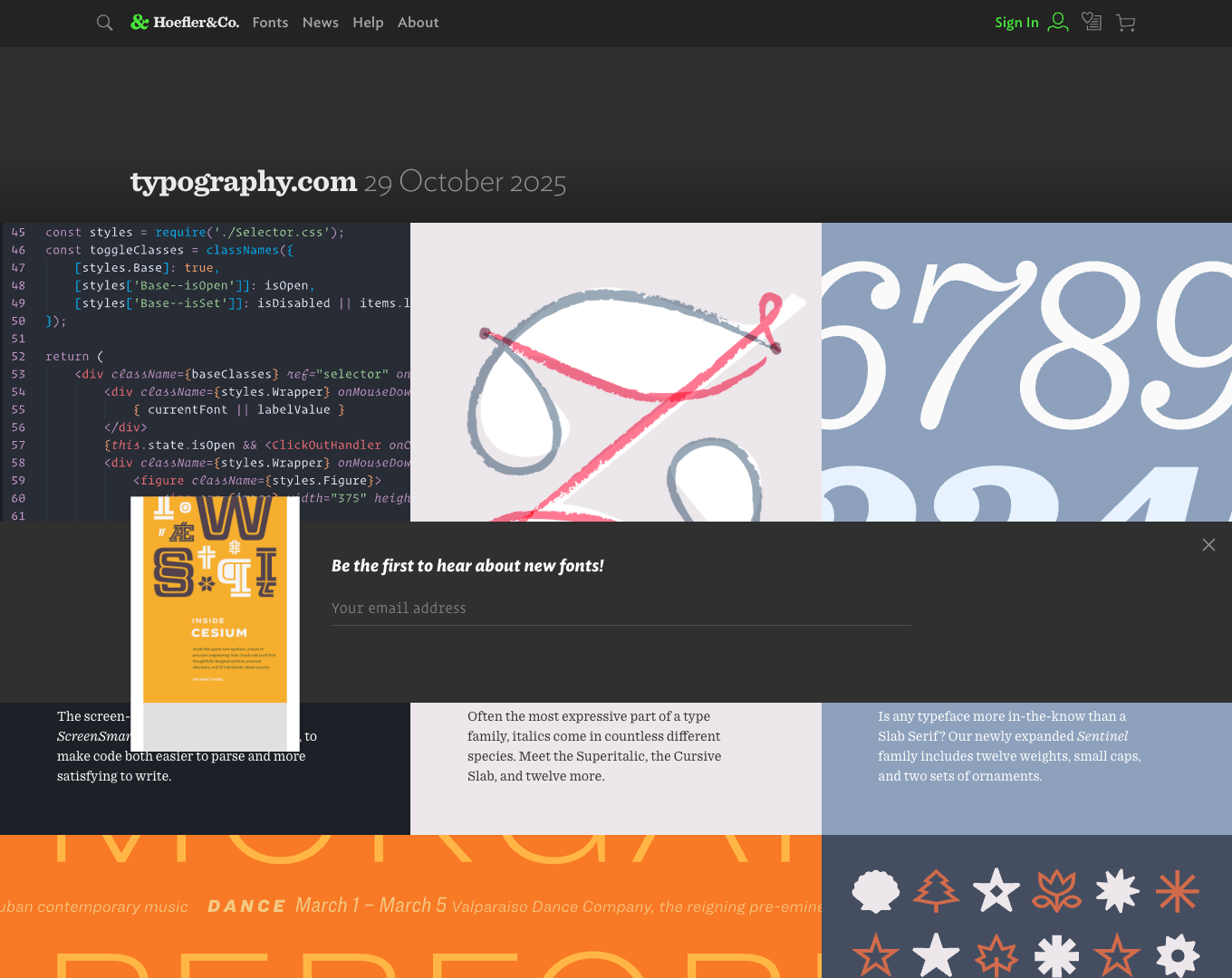
Hoefler&Co offers a curated collection of high‑quality typefaces designed for a range of applications—from editorial fashion spreads to code editors and map labels. The library includes versatile families like Sagittarius, Peristyle, Operator Mono ScreenSmart, Decimal, Gotham Narrow, and expanded slabs like Sentinel. Each font provides multiple weights, widths, symbols, and advanced OpenType features, ensuring optimal legibility and aesthetic control across print, web, and mobile environments.